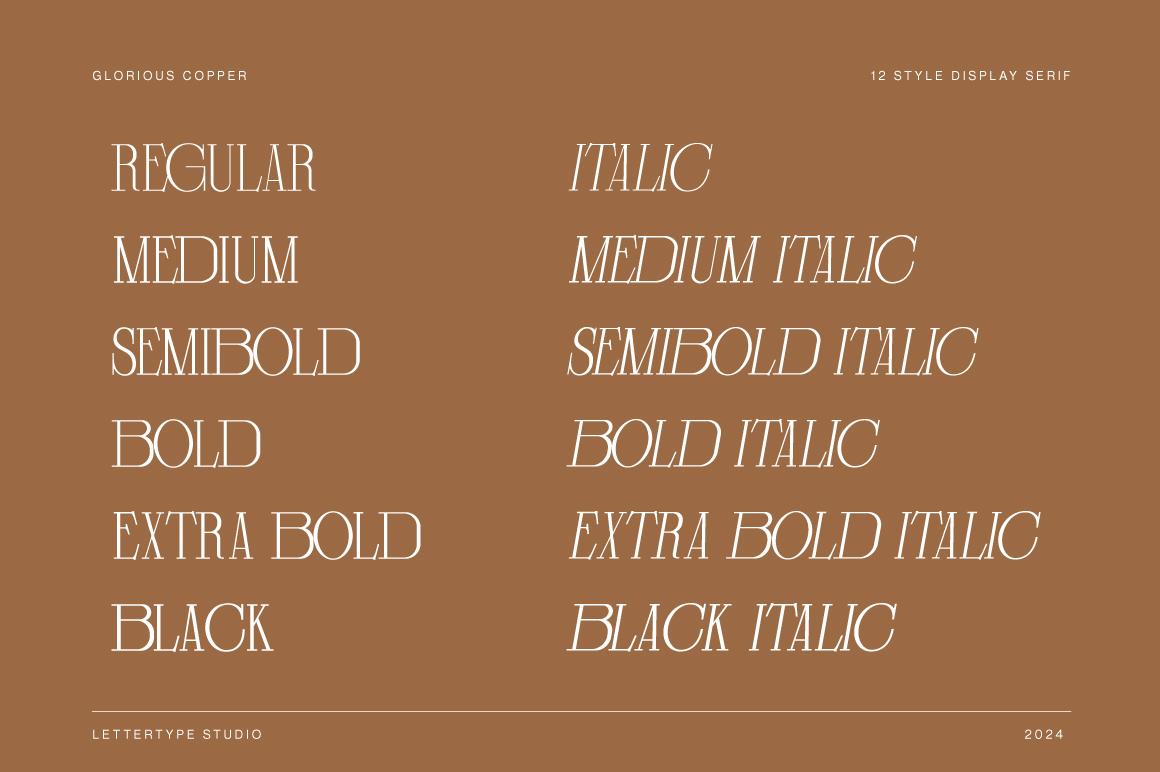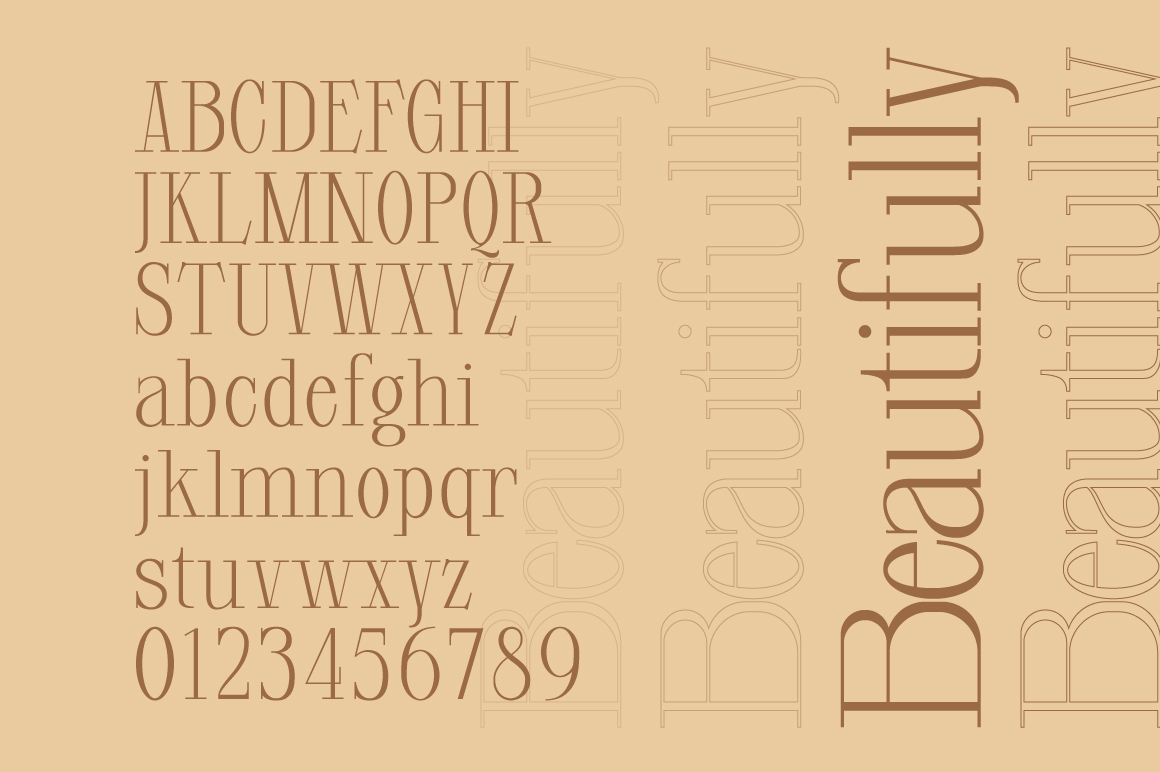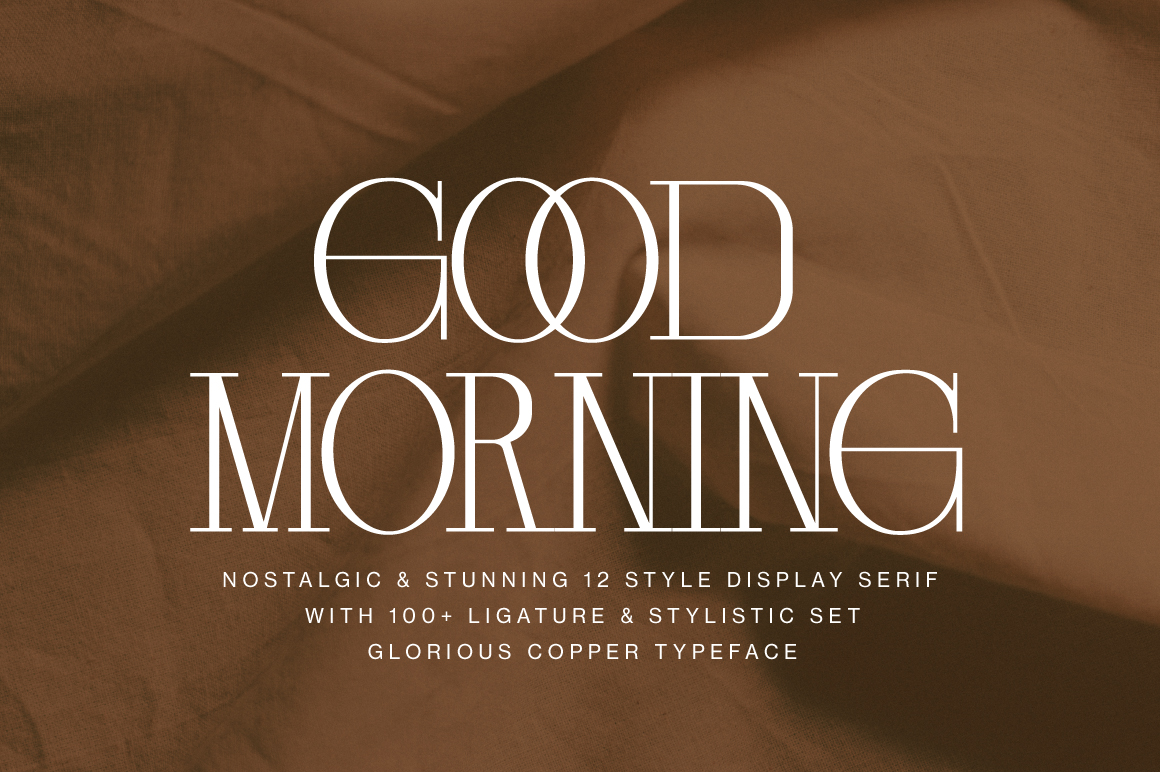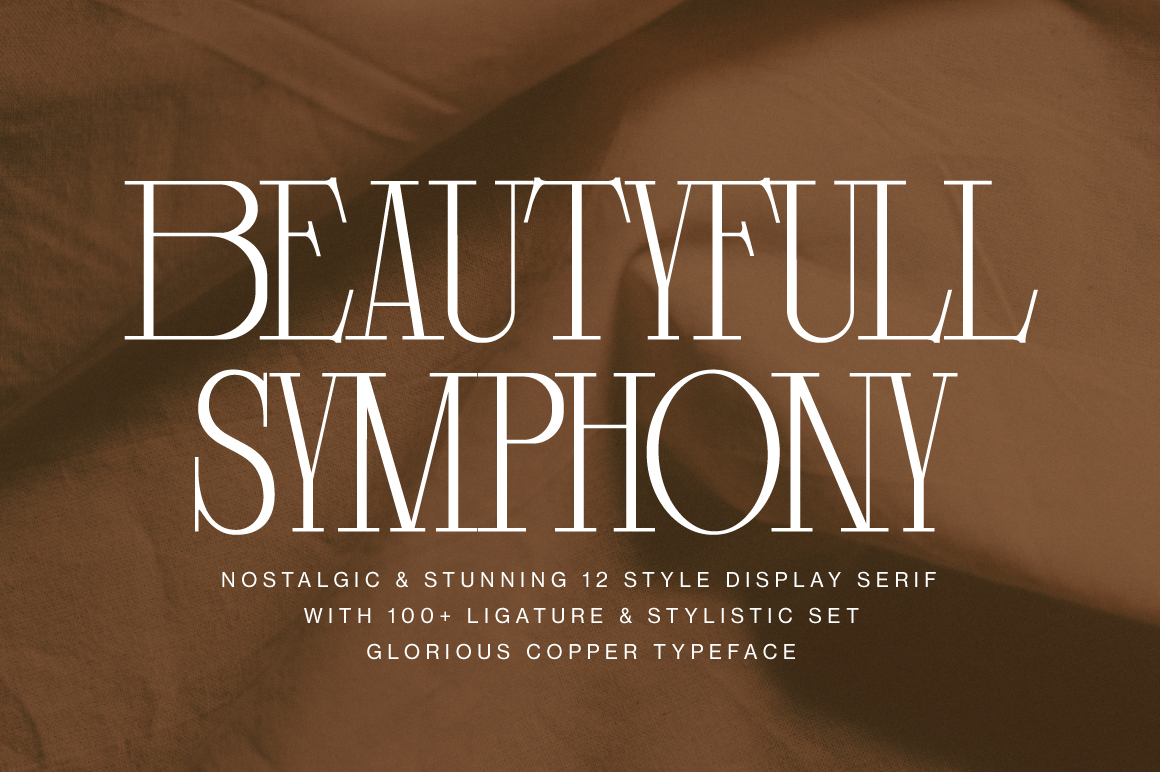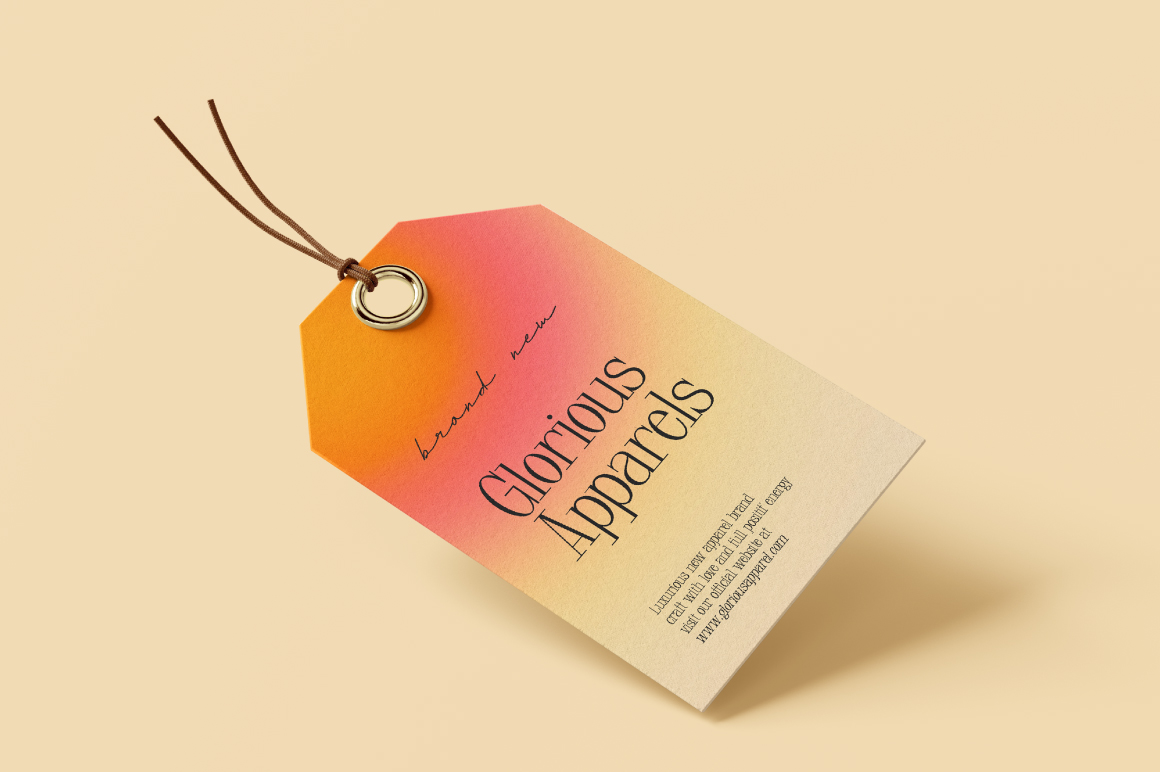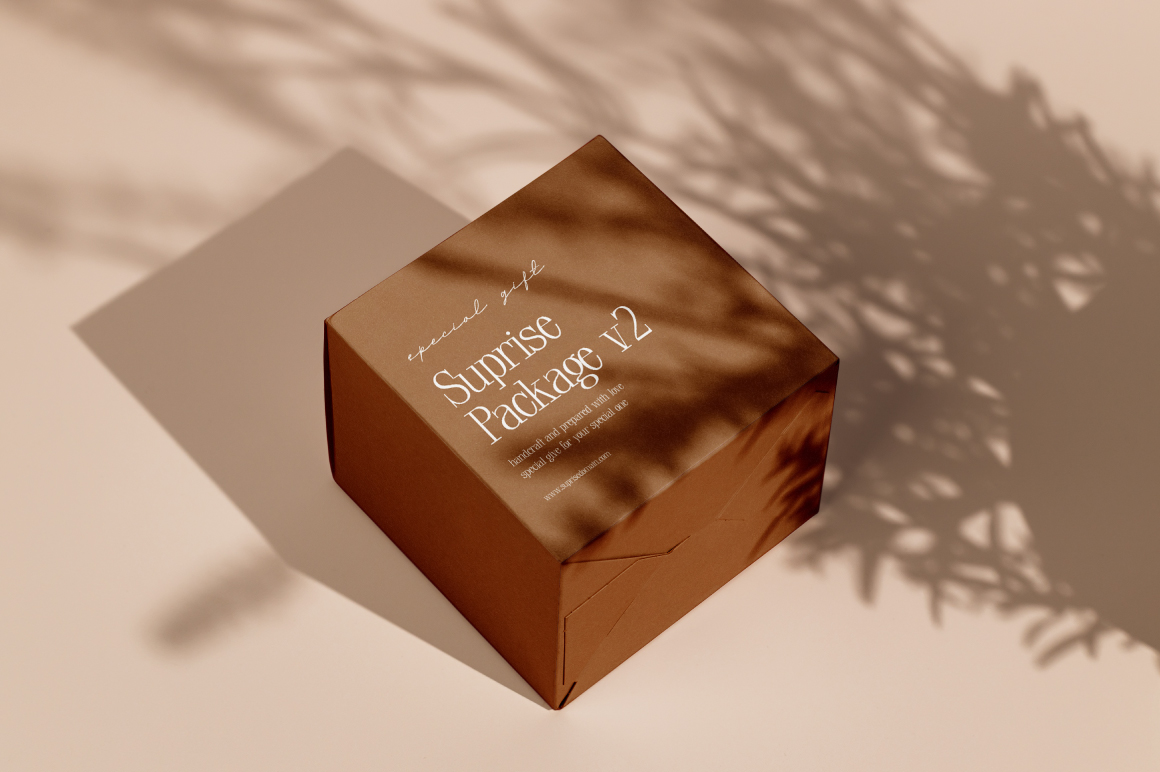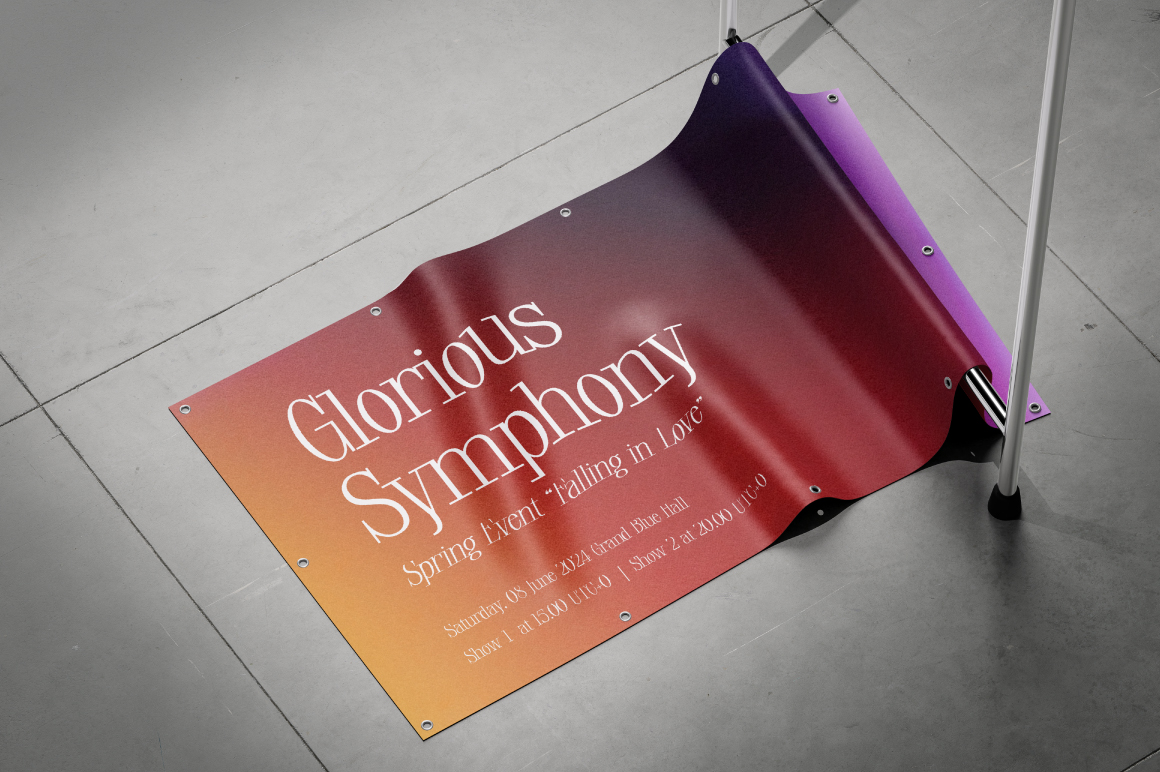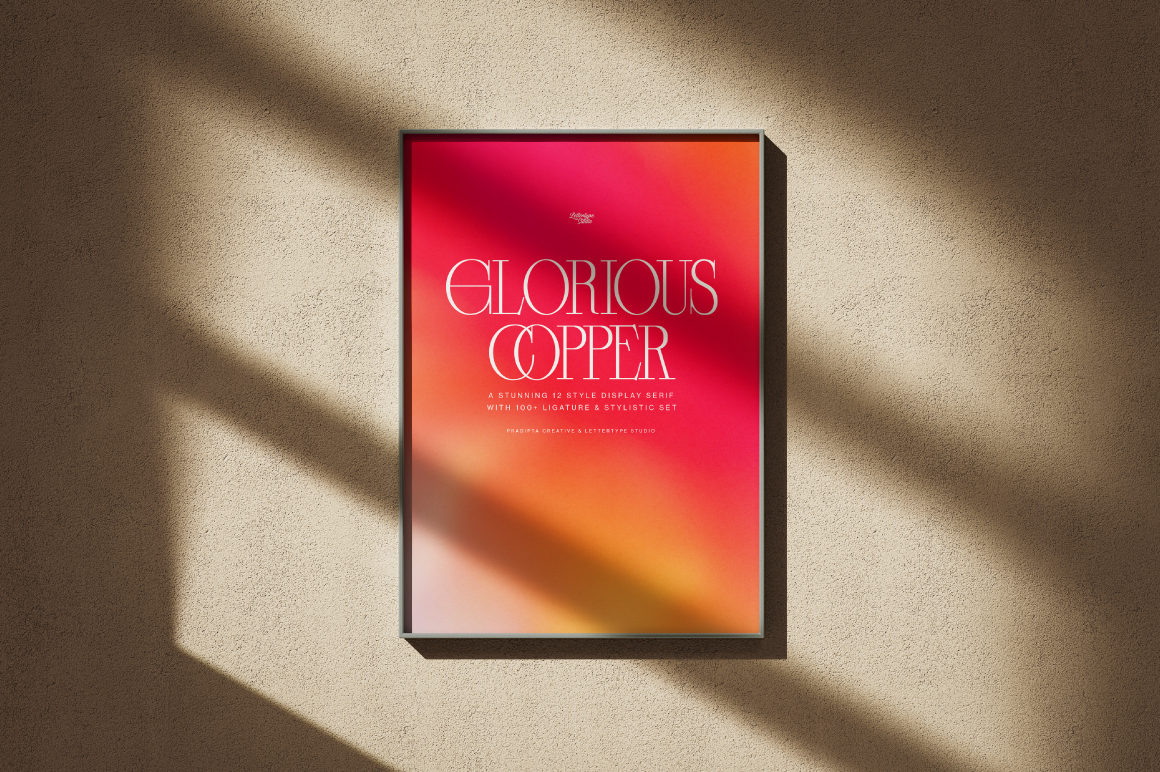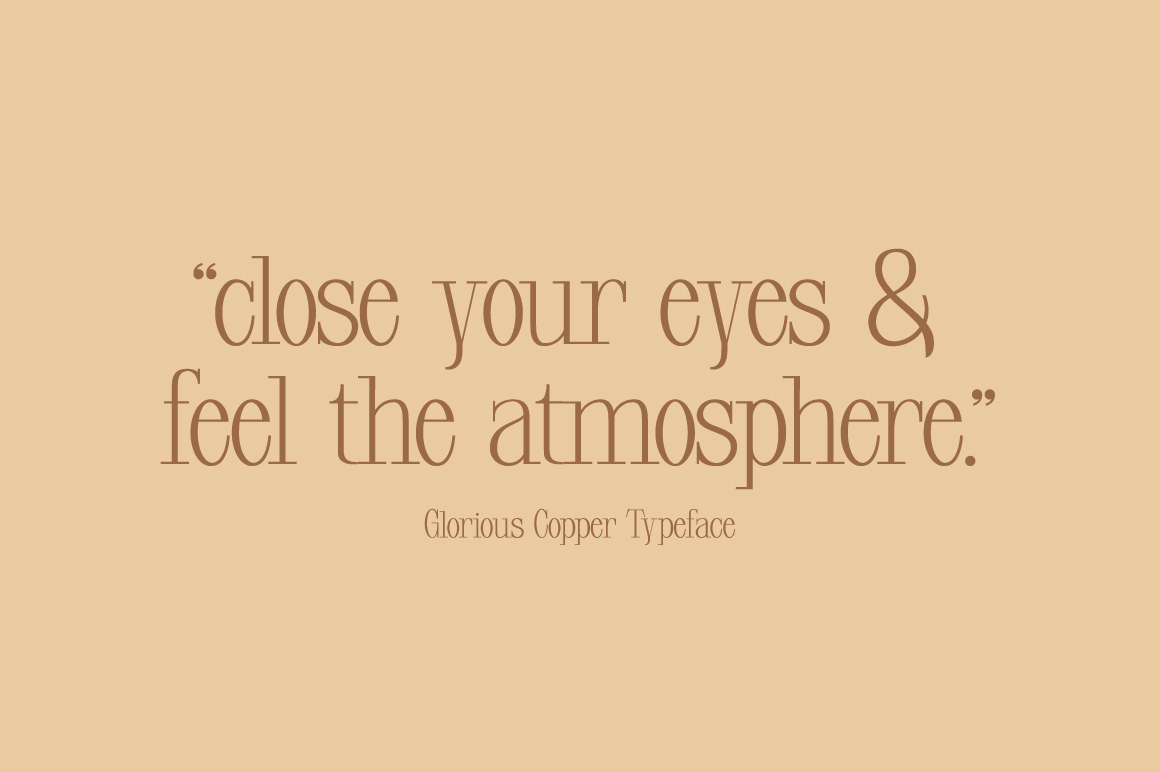
Glorious Copper is a nostalgic display serif font family featuring 12 distinct styles and over 100 ligatures and alternates. Inspired by vintage typography and timeless editorial aesthetics, it delivers a refined balance between elegance and bold retro charm.
Perfect for branding, packaging, posters, and fashion layouts, Glorious Copper brings sophistication and warmth to every project. Its rich stylistic set makes it versatile for everything from luxury lookbooks to cafe signage, creating a beautiful blend of classic inspiration and modern craftsmanship.
Glorious Copper Features:
• Lowercase & Uppercase
• Numerals & Punctuation
• Alternates & Ligature
• Multilingual Support
• Font Family (12 Styles)
Glorious Copper